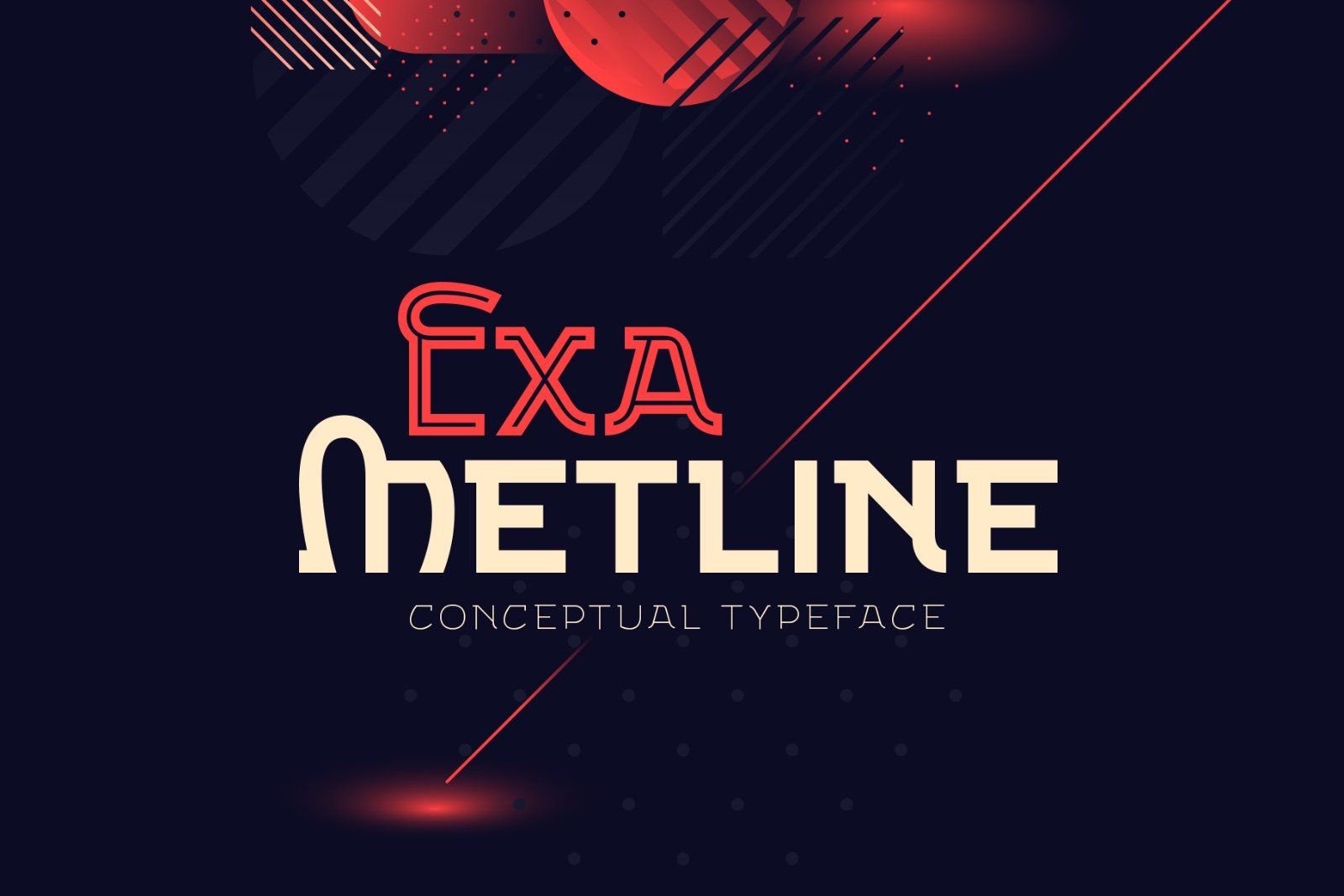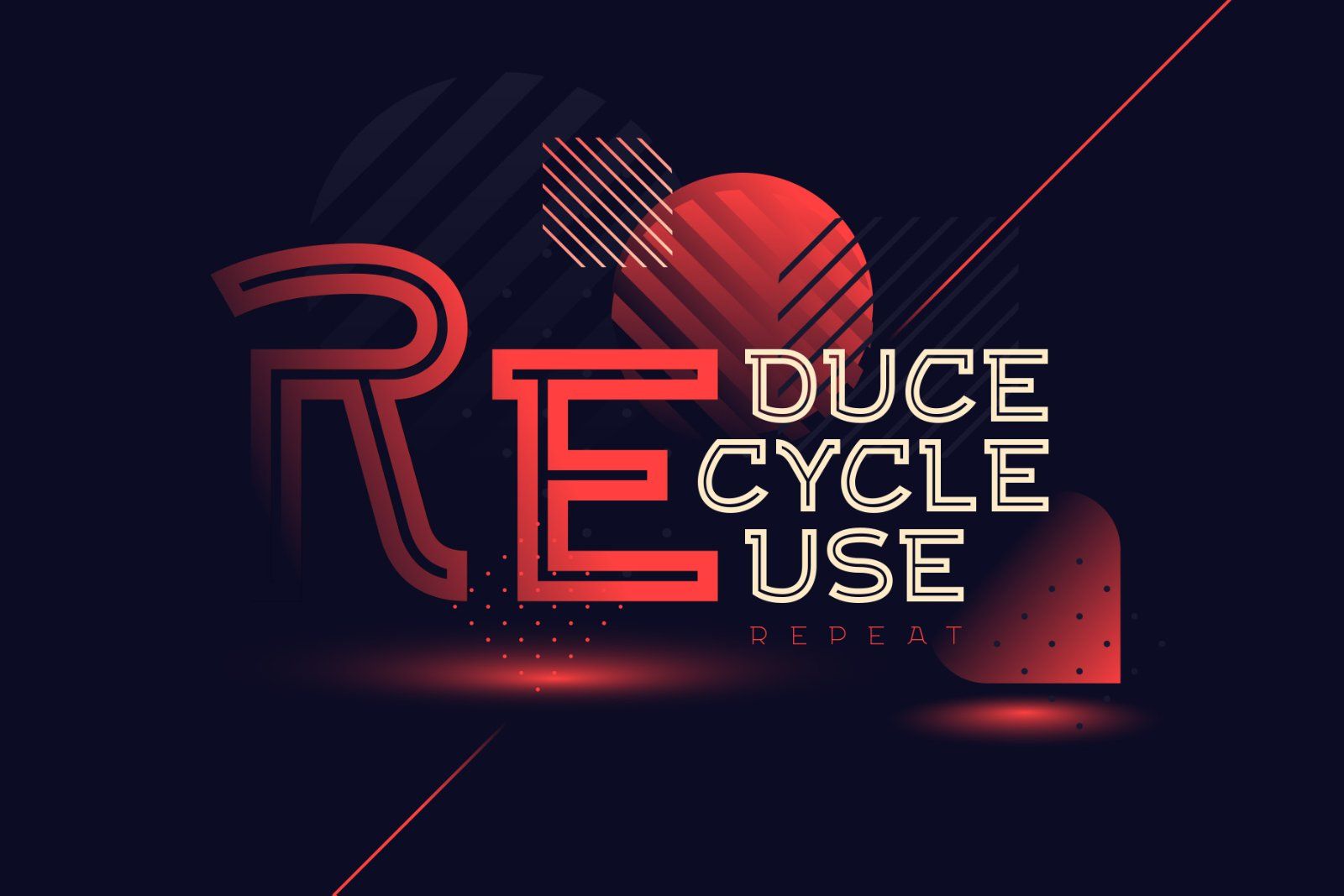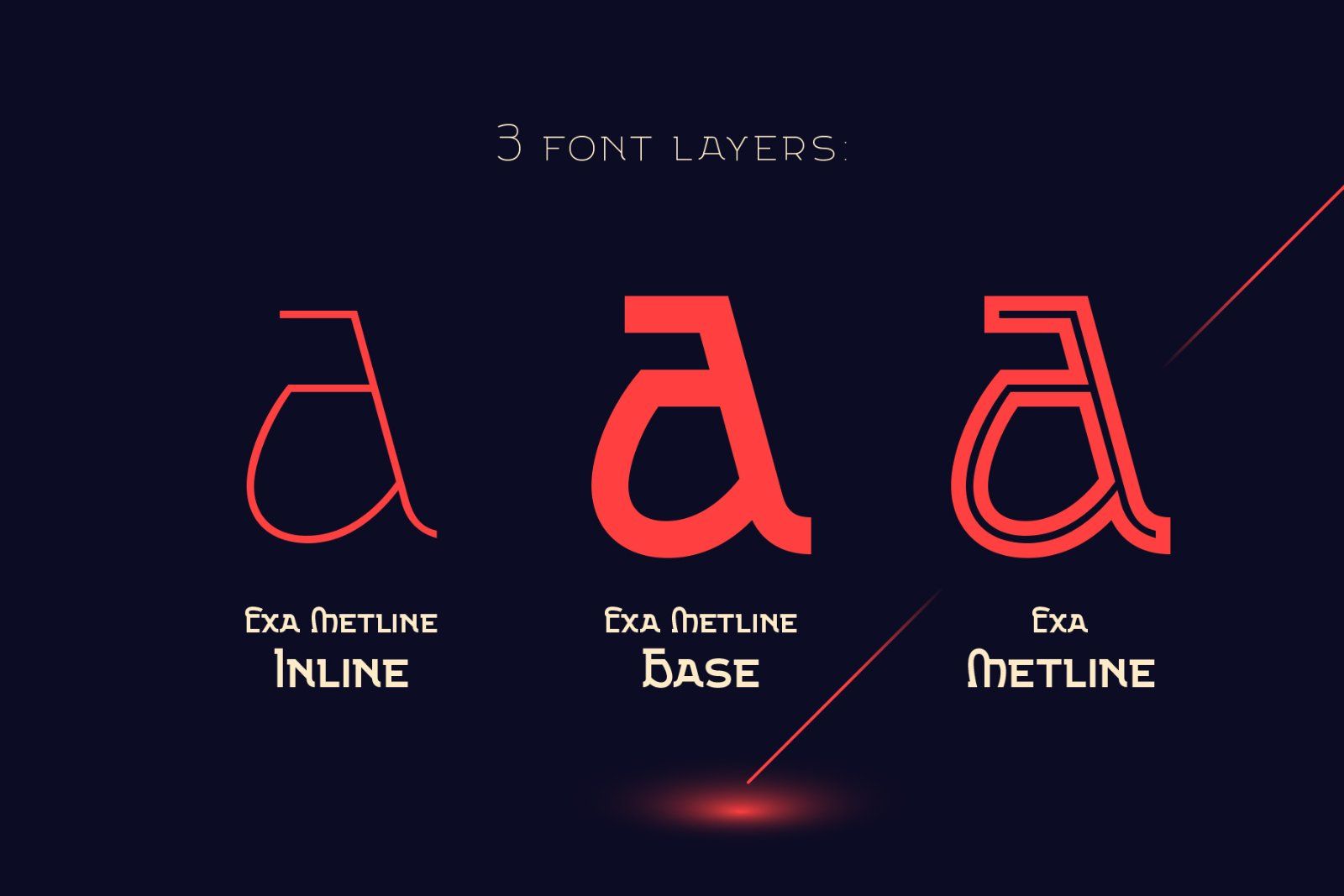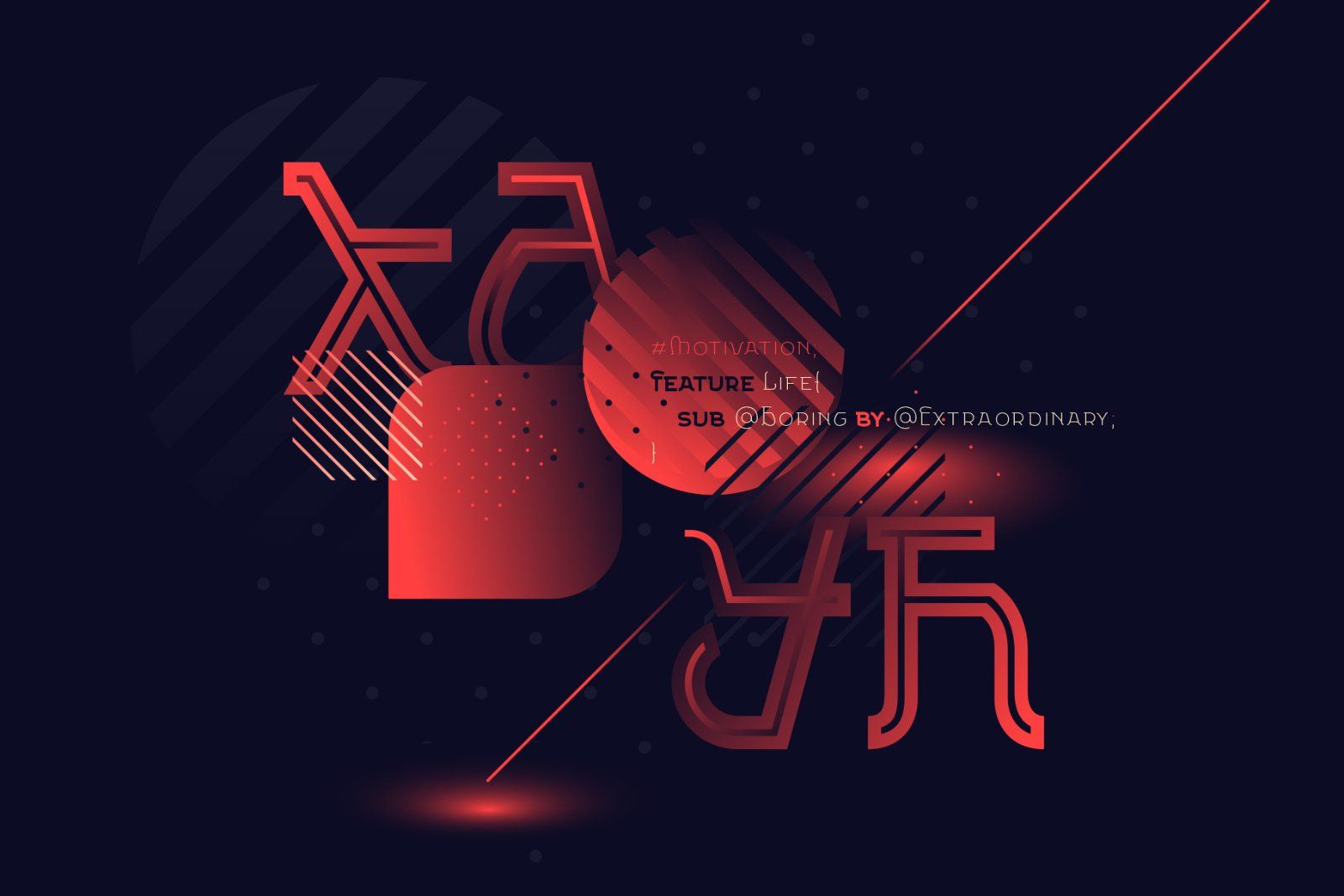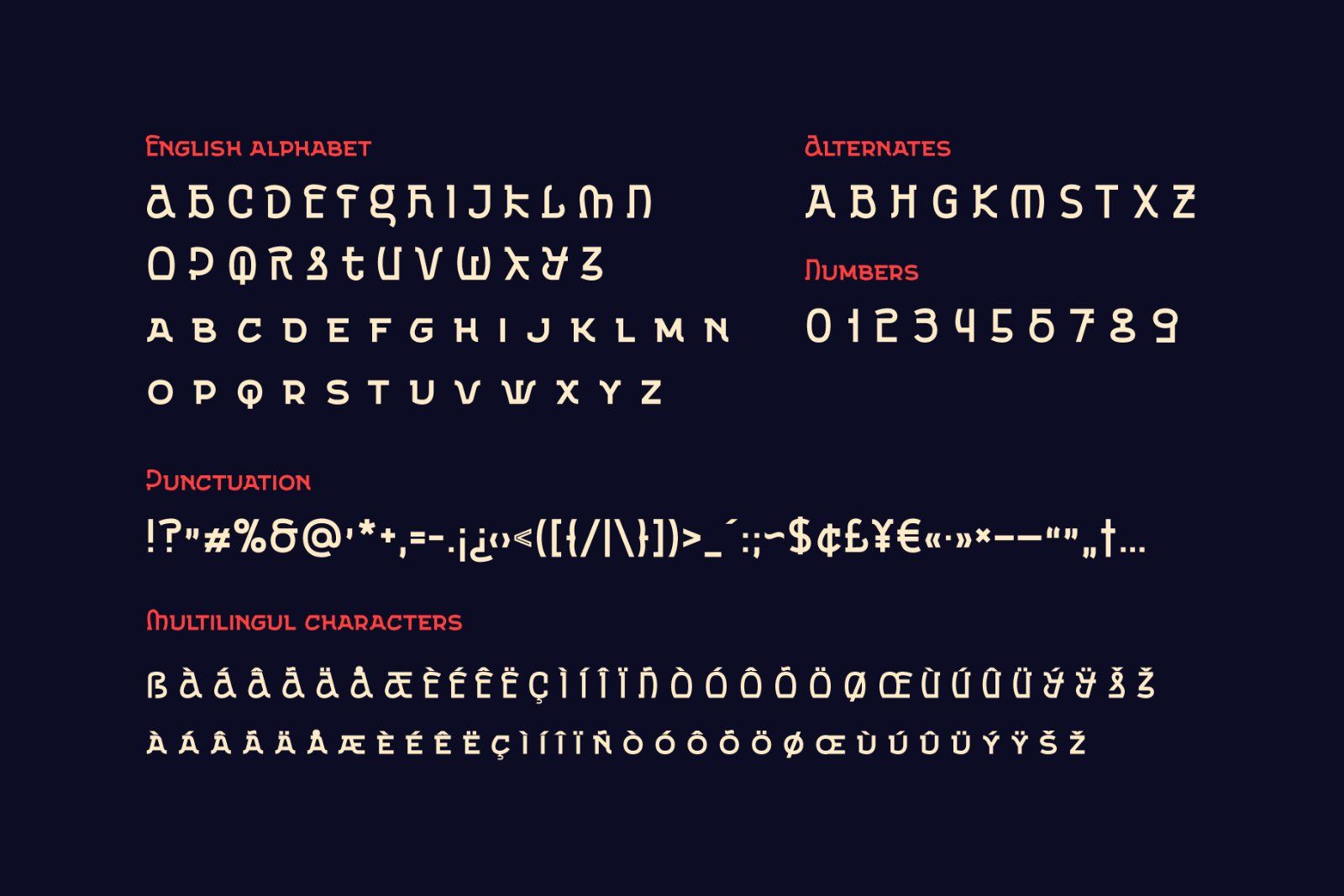
Hello! Presenting a conceptual font Exa Metline. It's a modern style geometric typeface with unusual letters shape. This package consists of 3 fonts with separate inside line layer. Also 10 alternate characters are available, if you'll need a more familiar letters shape. As a bonus you will get a vector compositions with abstract geometric design.